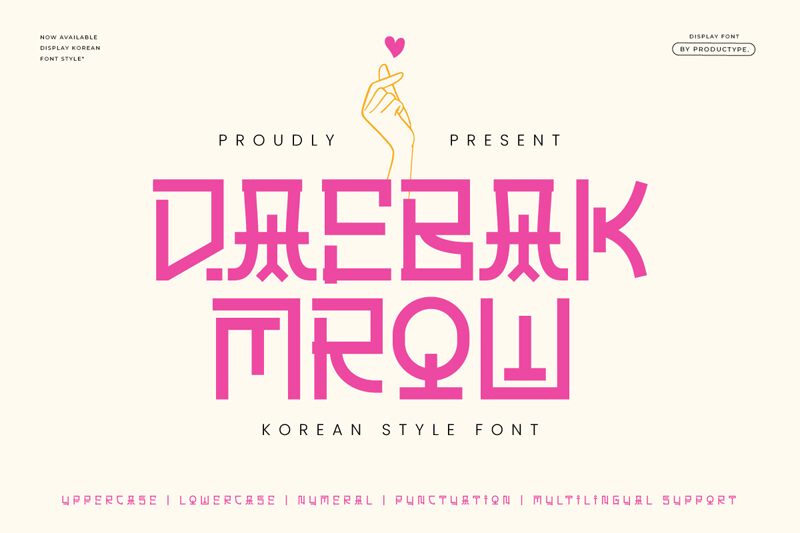
Daebak Mrow font family is a product of productype.com, and it comes in 2 font styles to choose from. The simple geometric font is inspired by oriental inhabitants, Korean to be more specific. Although most of its characters are readable, there are some that might challenge you to guess what they are at first sight. This font family is a widely open foreign option to the creative artist who likes experimenting with distinctive graphic elements in their projects.
Use it in poster designs and fun illustrative artwork where it can take the central stage as a display font. If you like, create a company character in the form of a Pixel Pete avatar instructing employees on safety guidelines right in your warehouse. Use Daebak Mrow in ads, magazine covers, brochures, websites, and social media posts among many other ideas.